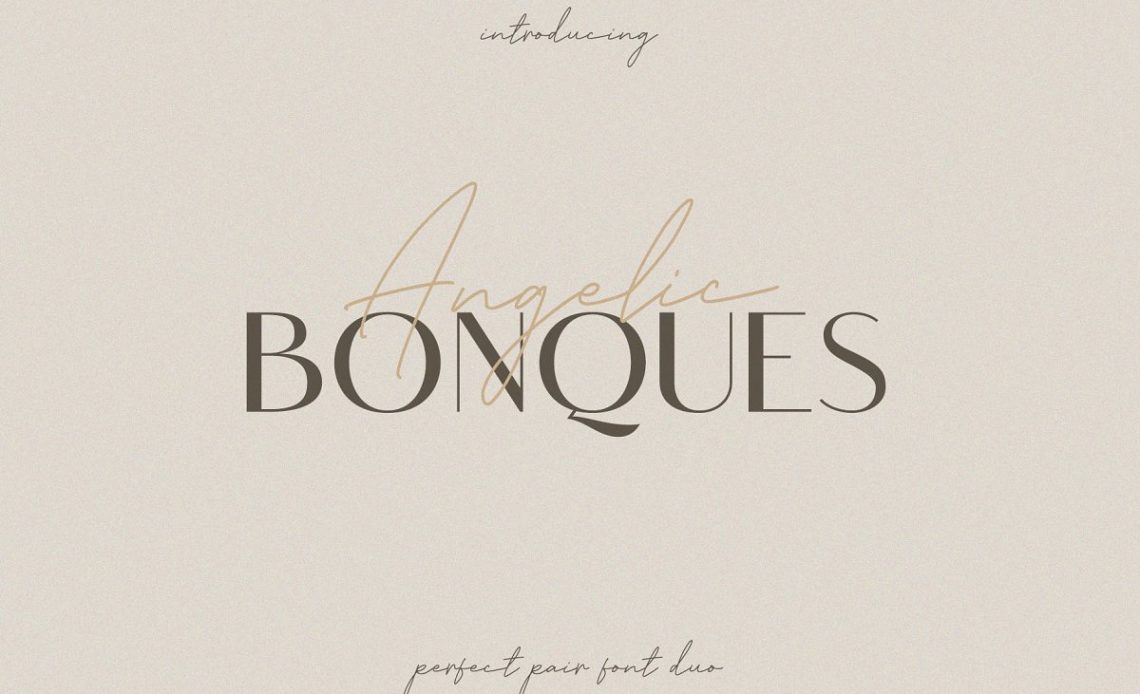
Are you looking for the perfect font duo to add elegance and sophistication to your designs? Look no further than Angelic Bonques - Perfect Pair Font Duo. Created by Trio Nazzar Saputra, this font duo is the ideal combination of an elegant sans serif font and a beautiful handwritten script font based on real handwriting expression.
Perfect for fashion, e-commerce brands, wedding boutiques, and any business wanting to appear upscale and chic, Angelic Bonques - Perfect Pair Font Duo is also suitable for logos, greeting cards, quotes, posters, and more. With its special ligatures, numerals, and punctuations, this font duo is PUA encoded and easy to use, without requiring any special software.
But don't just take our word for it. Let the font duo speak for itself with its sleek and stylish design, guaranteed to make any art/design project look pretty and trendy. Whether you're looking to add a touch of sophistication to your business or simply want to elevate your design game, Angelic Bonques - Perfect Pair Font Duo is the perfect choice.